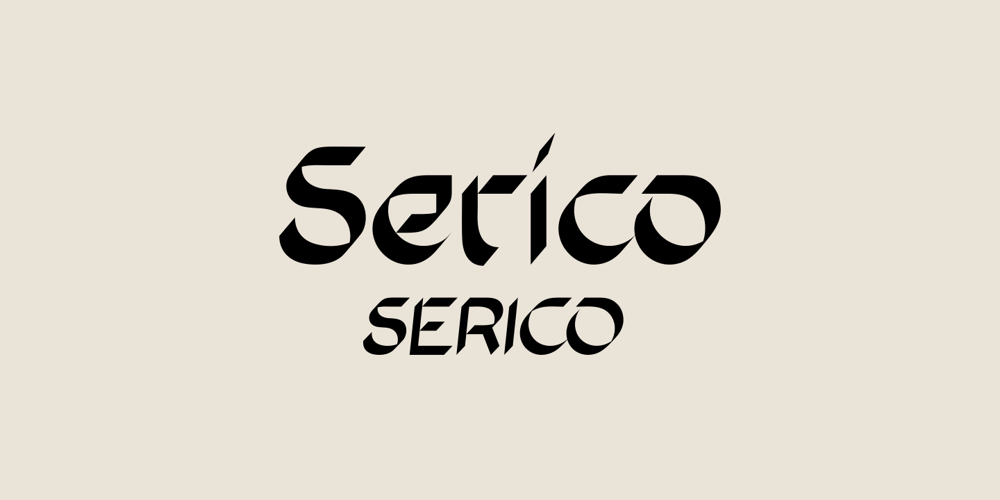
Serico Font Family was designed by Stefano Giliberti and published by Stefano Giliberti. Serico contains 2 styles and family package options. Serico is a font family that rekindles the past. It supports 114 languages, features a total of 508 glyphs and includes an italicized version.